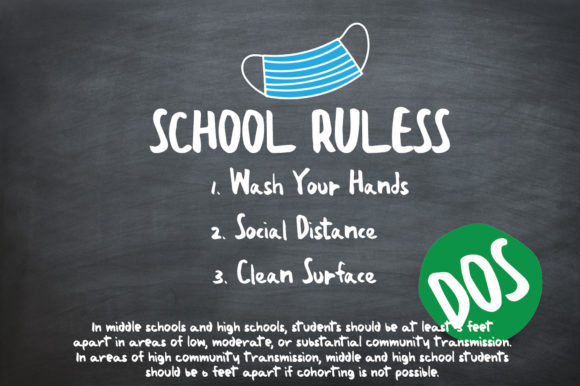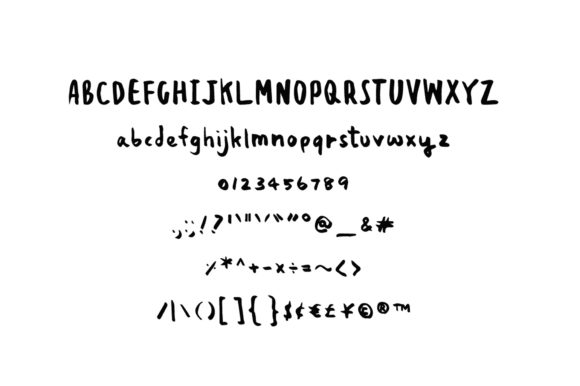
Lecturedos Font – Free Download
Introduction to Lecturedos Font
Lecturedos is a cute, informal and paint brushed handwritten font.
Key Features of Lecturedos Font
Why Choose Lecturedos Font?
Lecturedos Font offers exceptional quality and versatility, making it a valuable addition to your design toolkit. Whether you’re creating for personal projects or commercial use, Lecturedos Font delivers professional results.